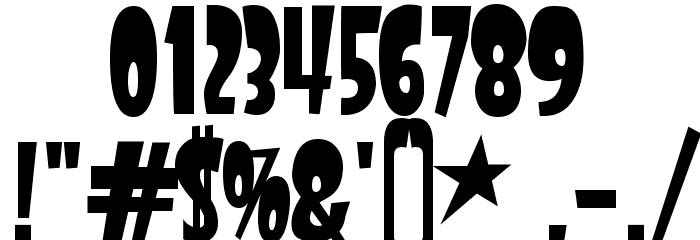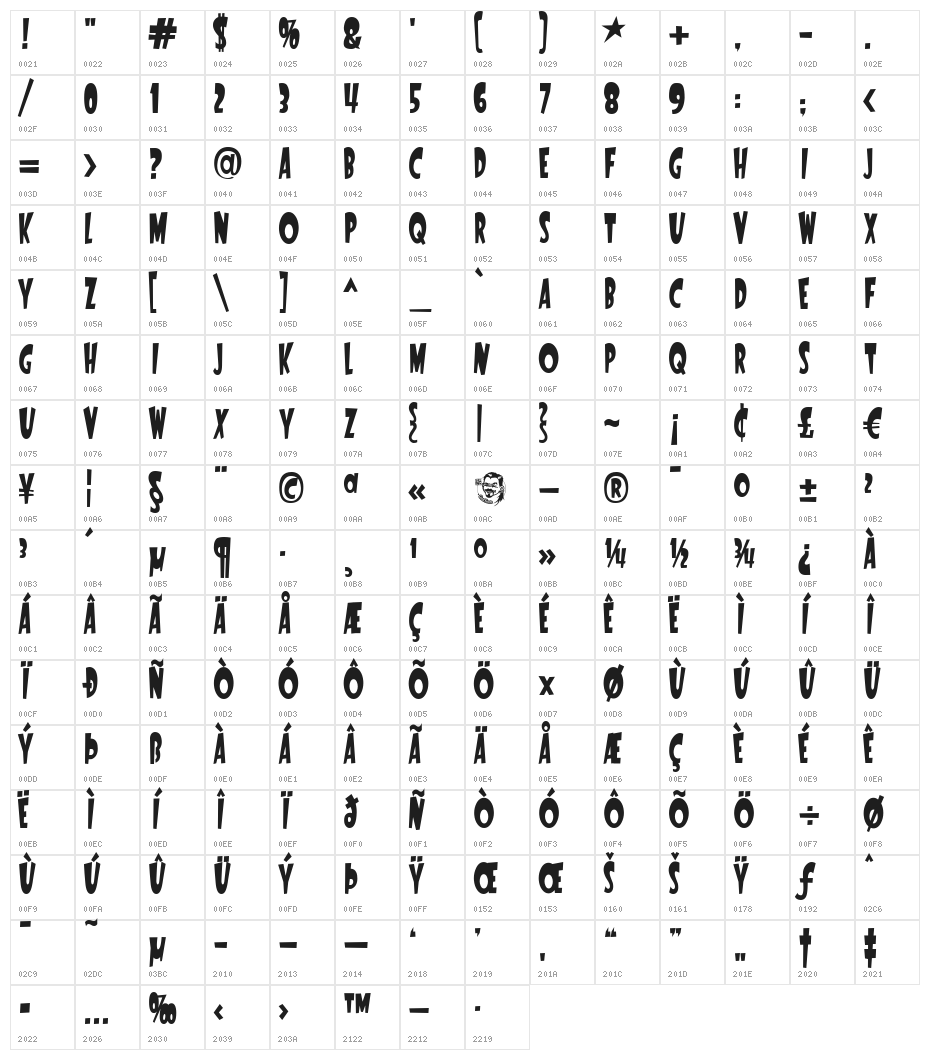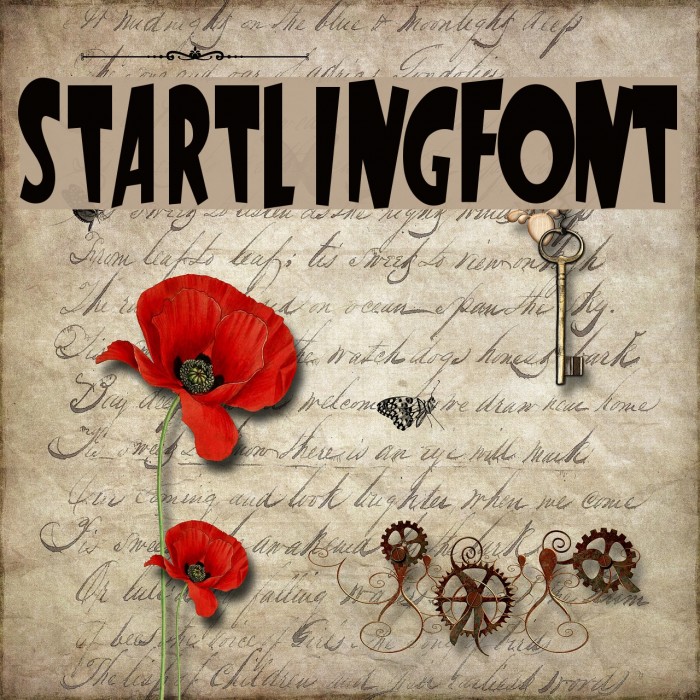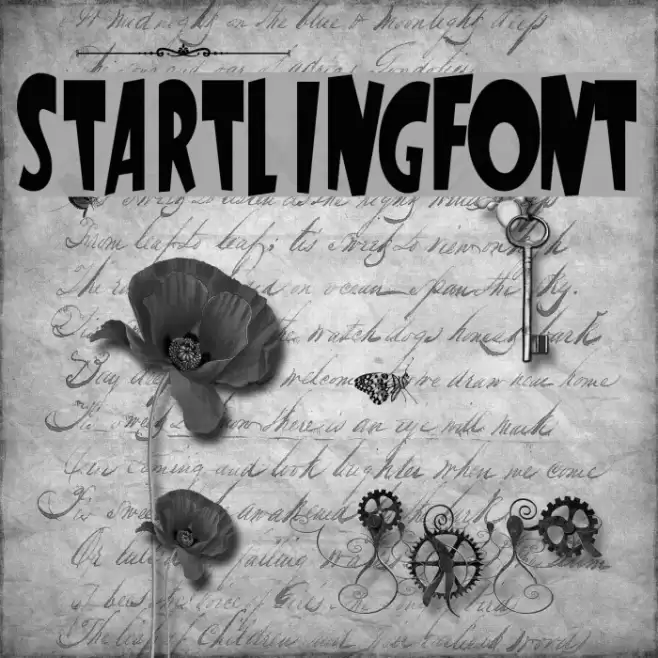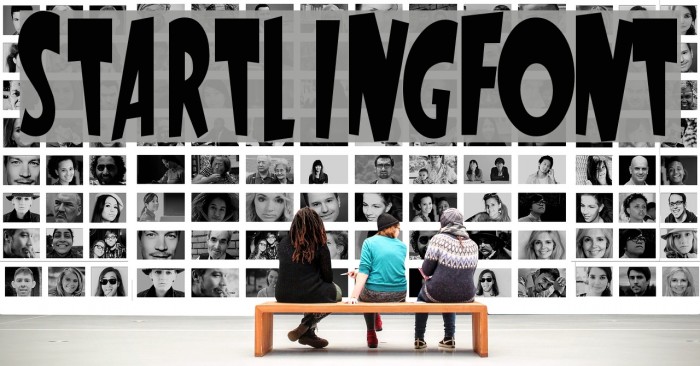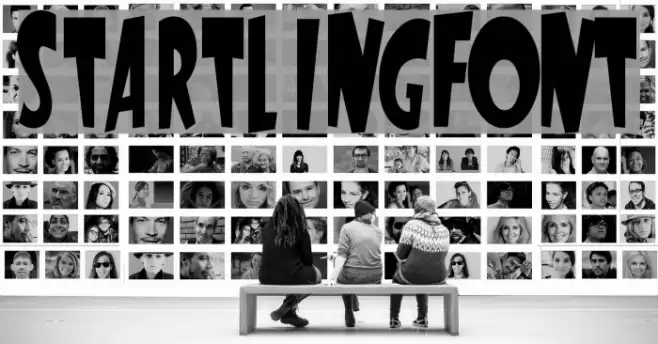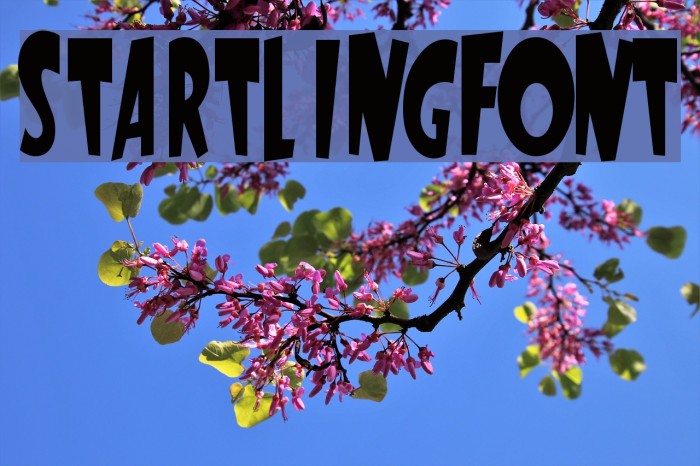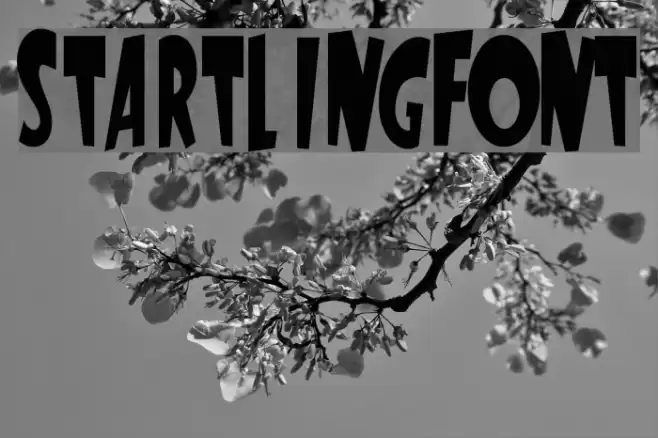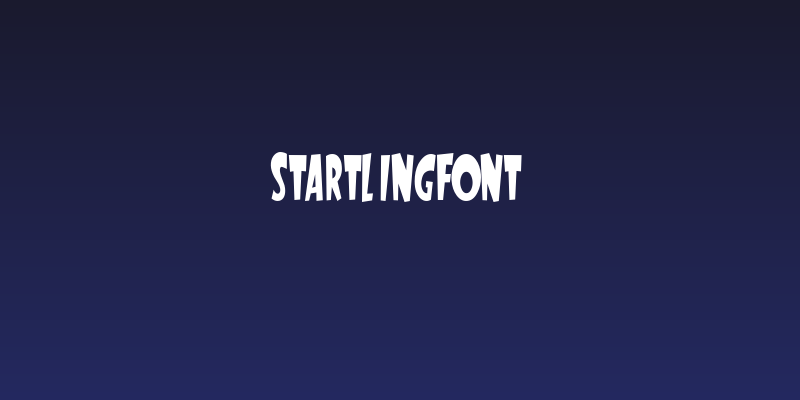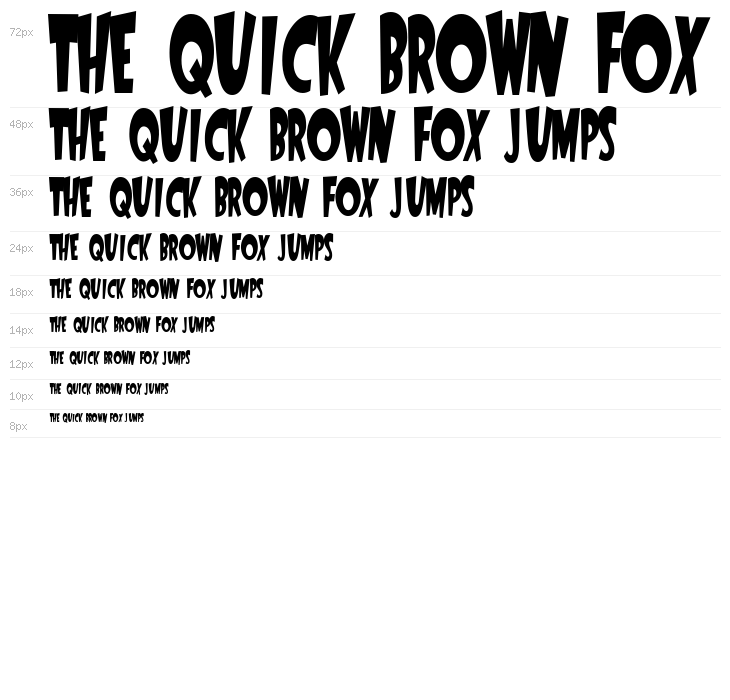
StartlingFont Font
StartlingFont Description
This font features bold, exaggerated characters with a playful and dynamic appearance. The letters are thick and slightly irregular, giving them a lively and energetic feel. The uppercase and lowercase letters maintain a consistent style, with a strong presence that commands attention. The numbers and special characters are equally bold, ensuring a cohesive look across all elements. This font is ideal for projects that require a fun and eye-catching design, such as posters, advertisements, or children's books.
| Overall Style | Playful, Energetic |
| Proposed Projects | Ideal for posters, advertisements, children's books, and any design needing a fun, eye-catching style. |